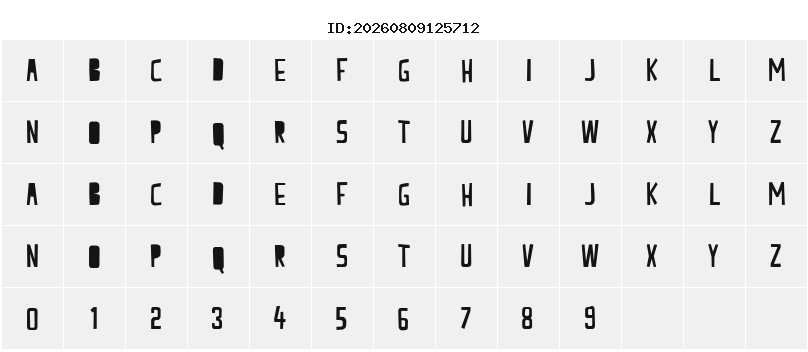
• Font Name: Peach Milk
• Designer: Frédéric Rich
About Peach Milk.ttf
Peach Milk.ttf is a modern, elegant sans-serif font designed for ultimate readability and visual harmony. Perfect for branding, headlines, web design, and print materials.